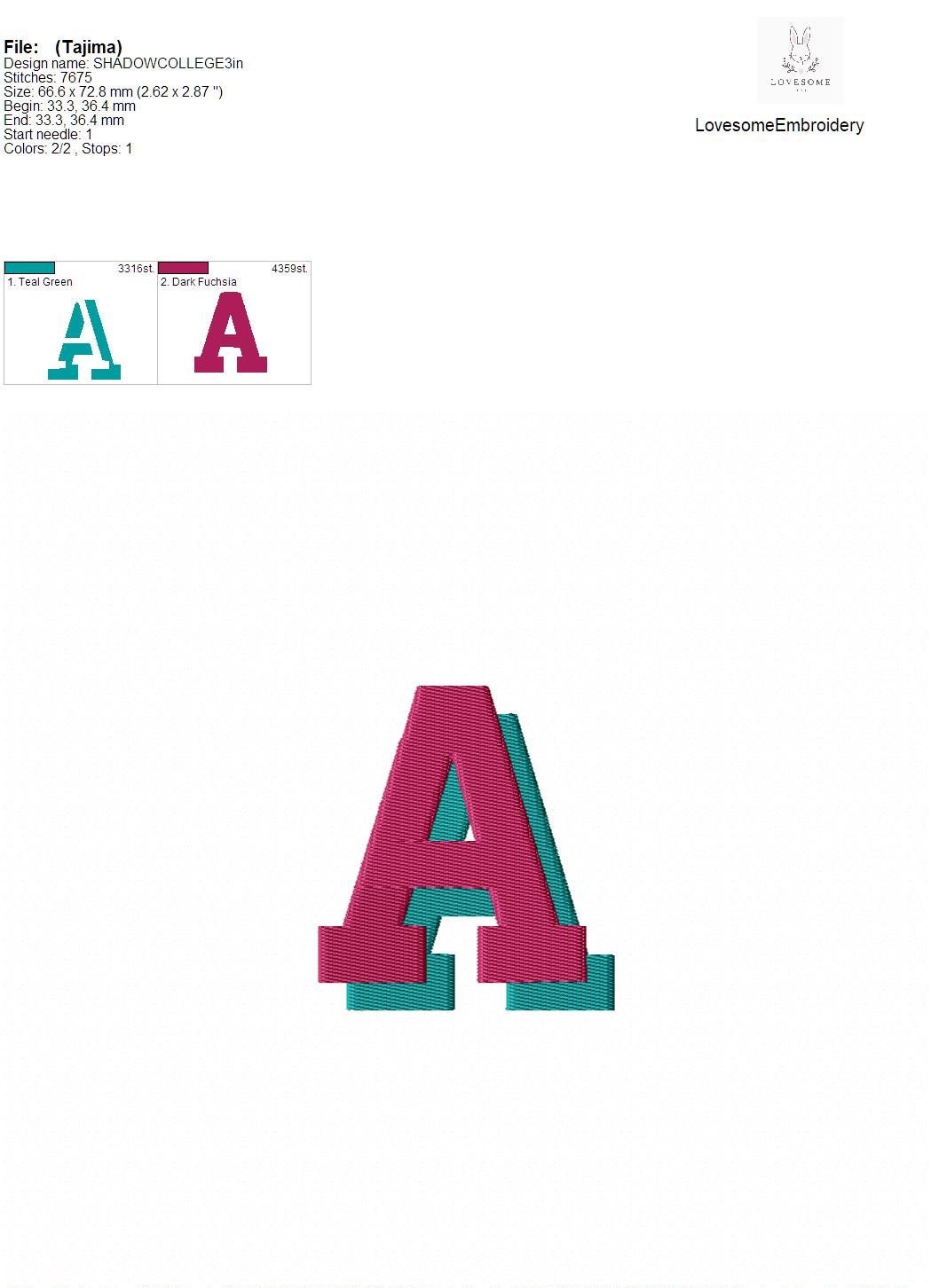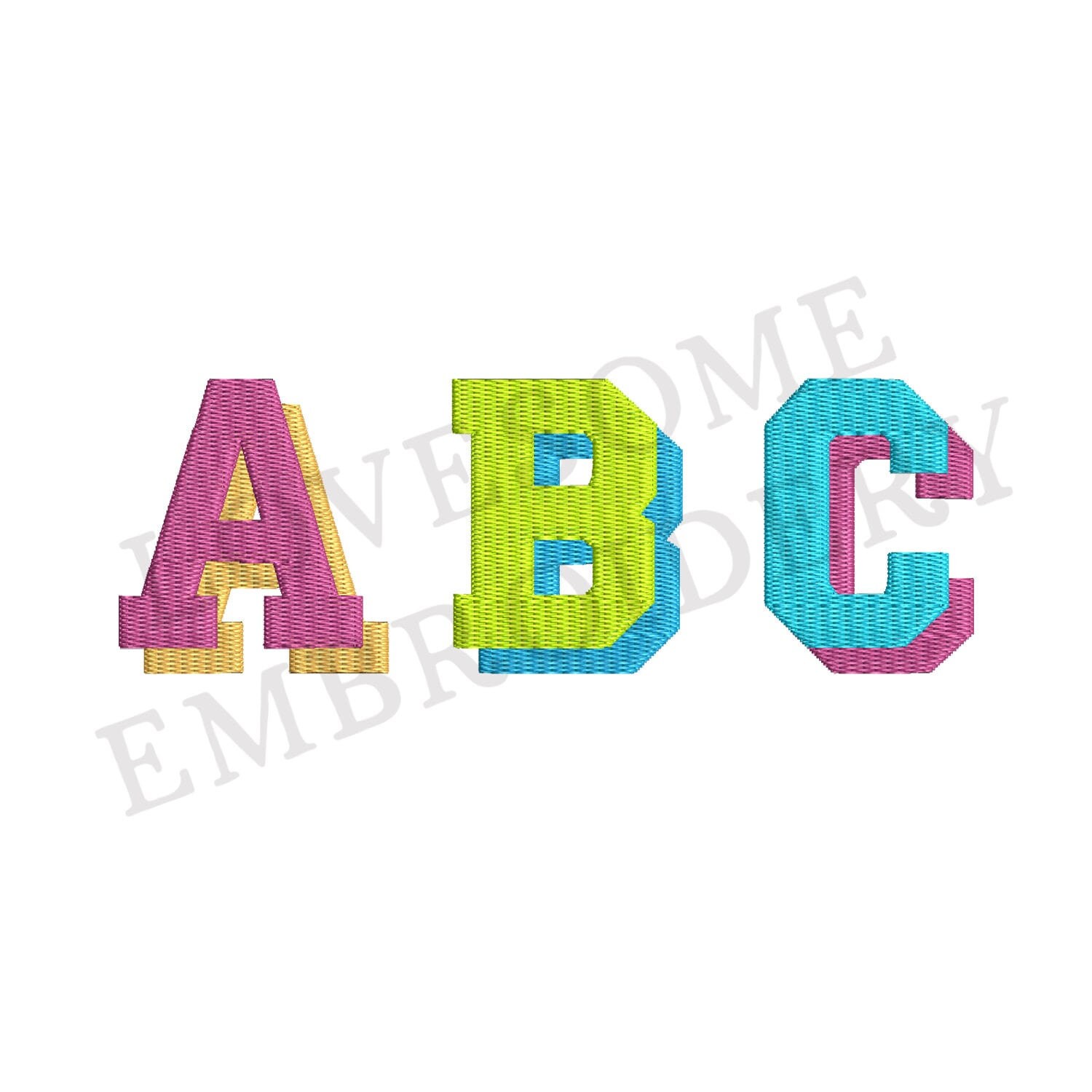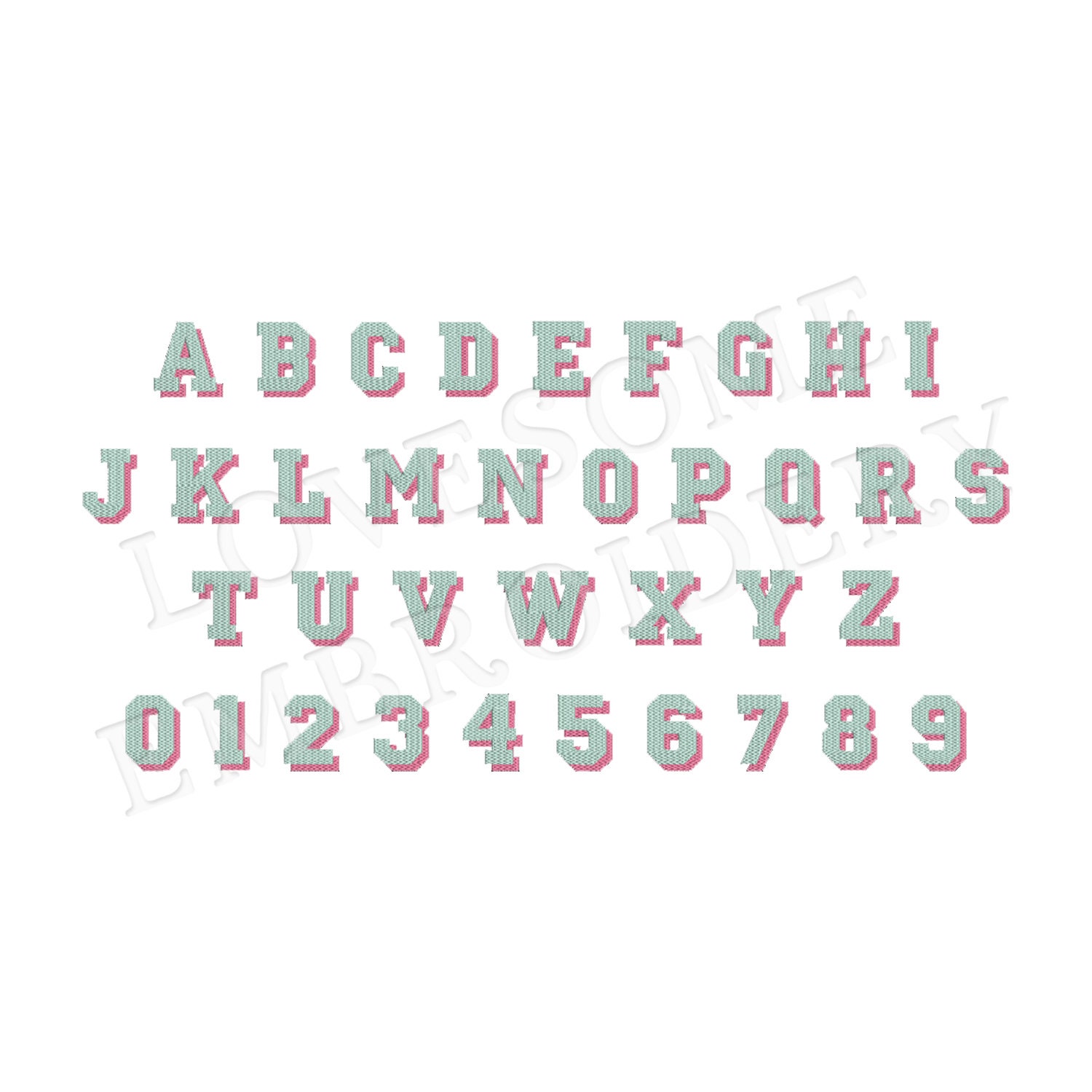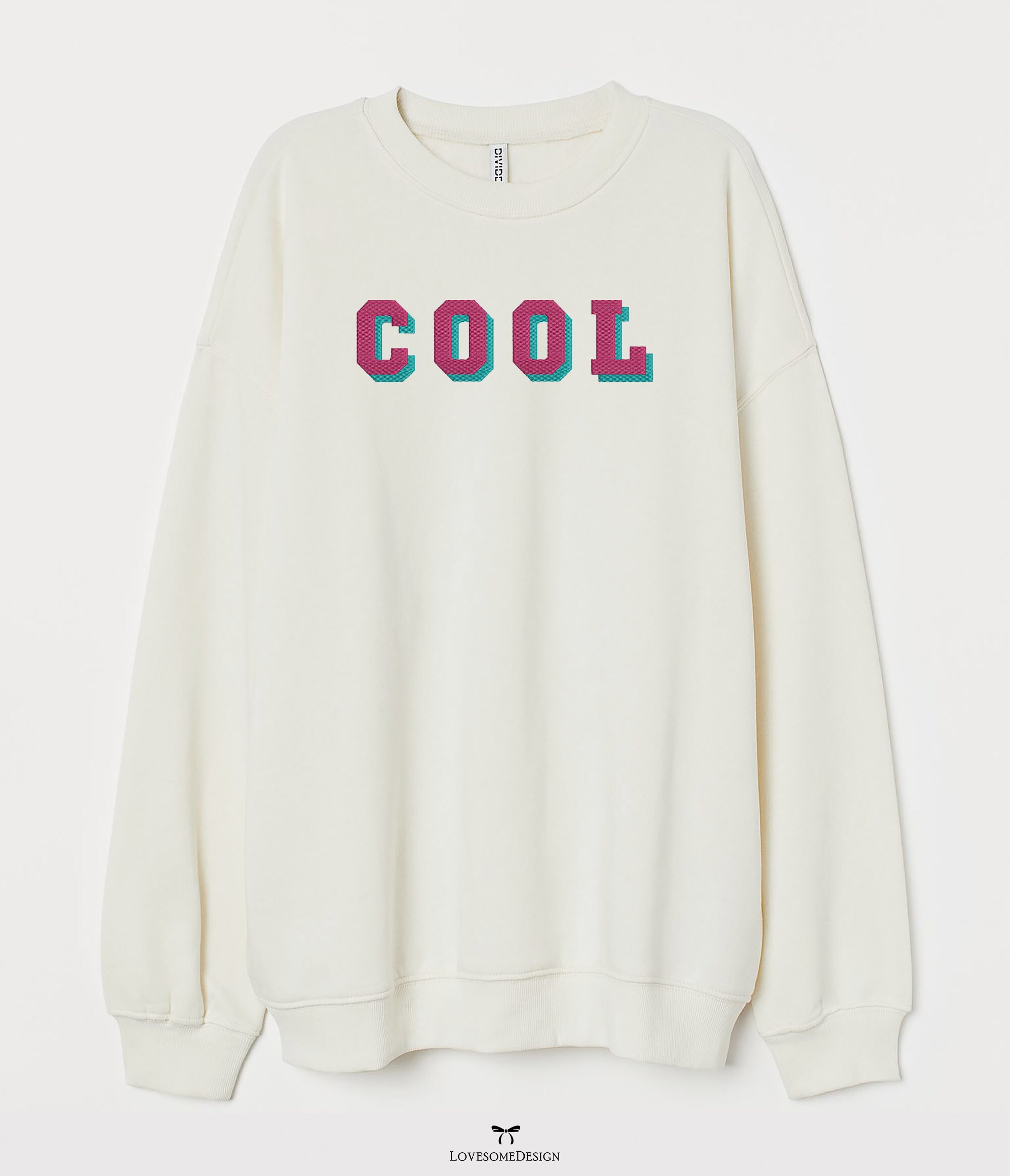
Shadow College 3inch Monogram Font A-Z Machine Embroidery Font Digital Download | Lovesome Design
This listing features a machine embroidery font set which includes embroidery files of 26 uppercase monogram shadow letters and 0-9 numbers in 3inch size. (For the whole set, pls see the listing images.)